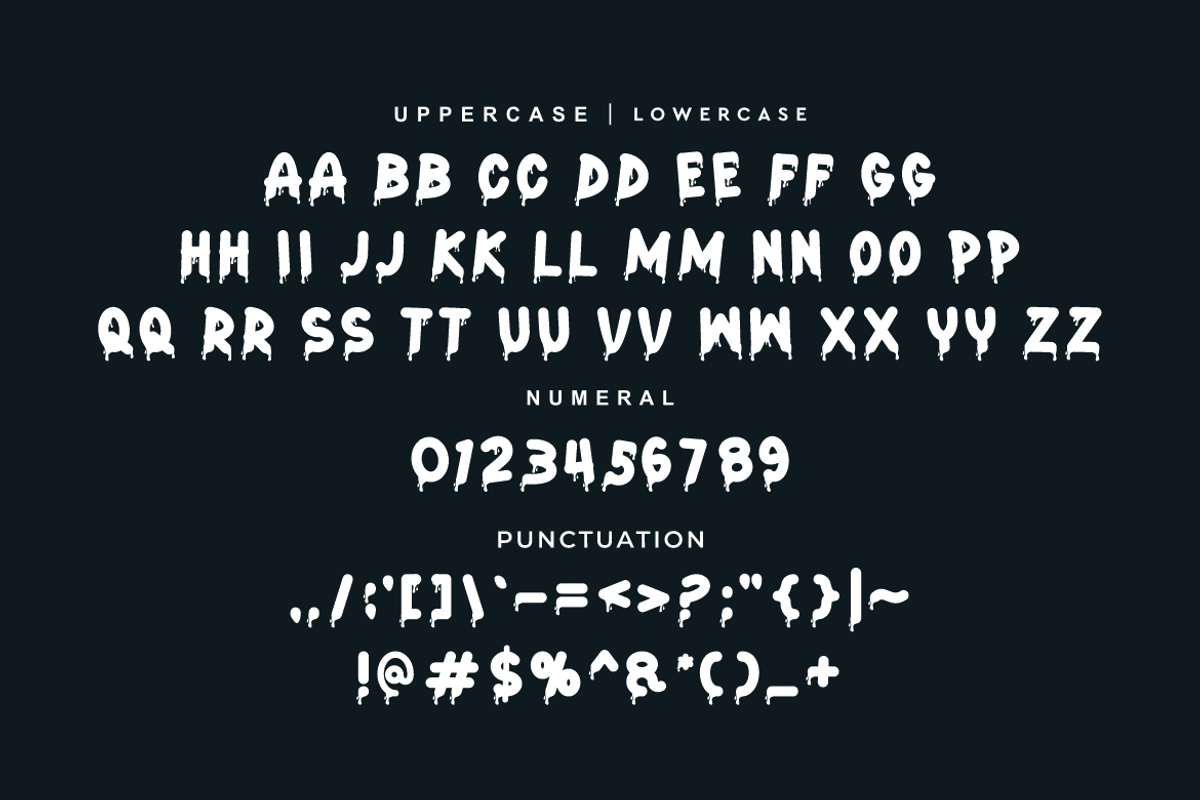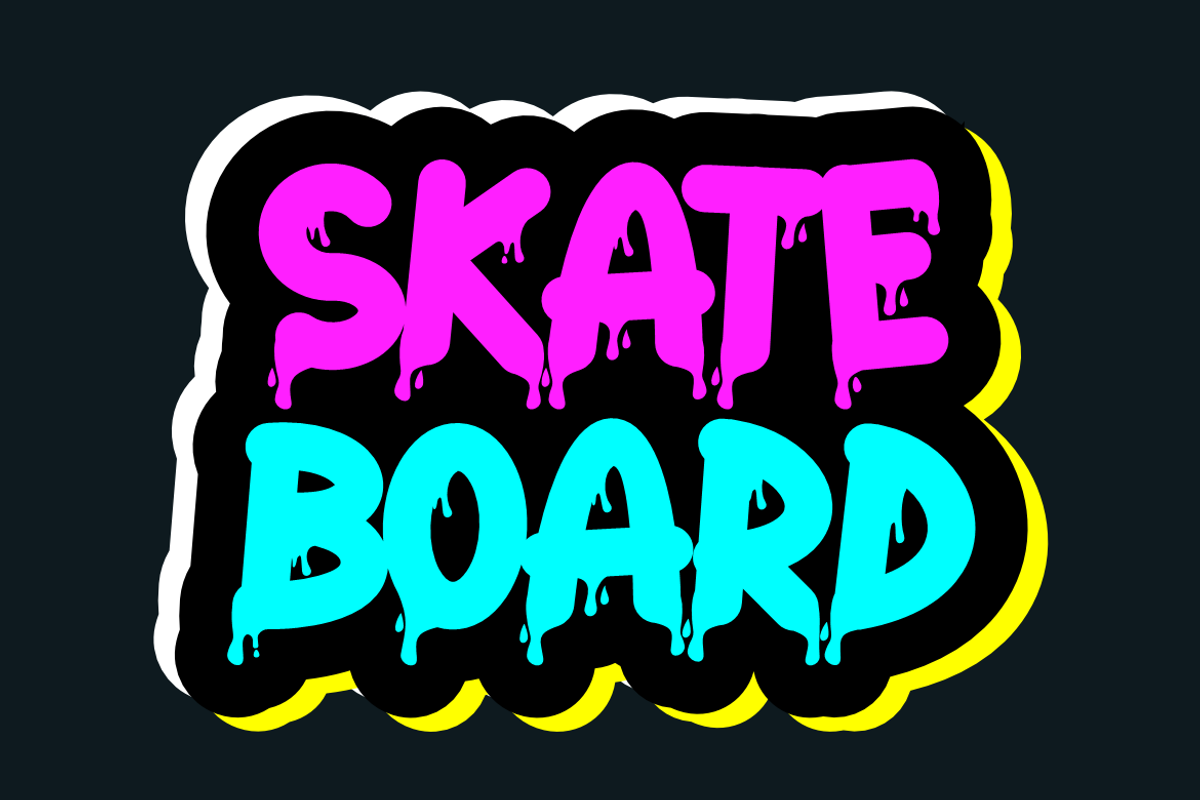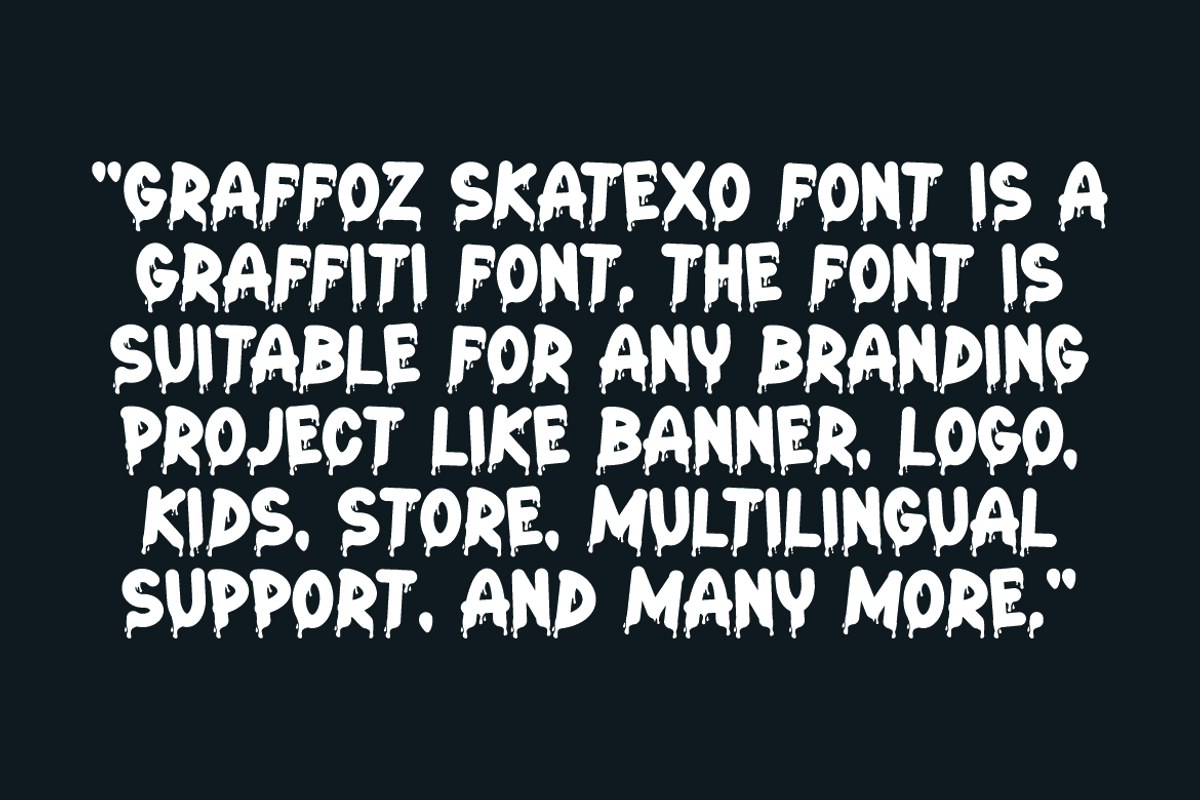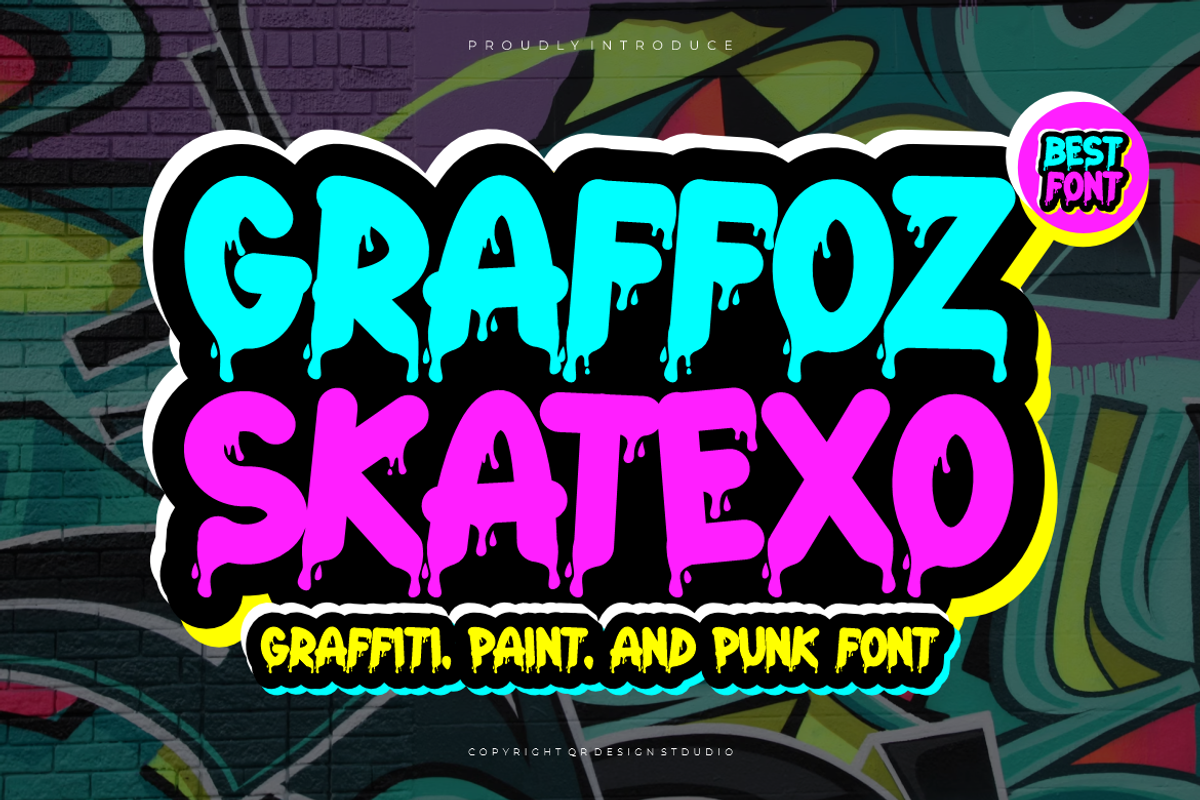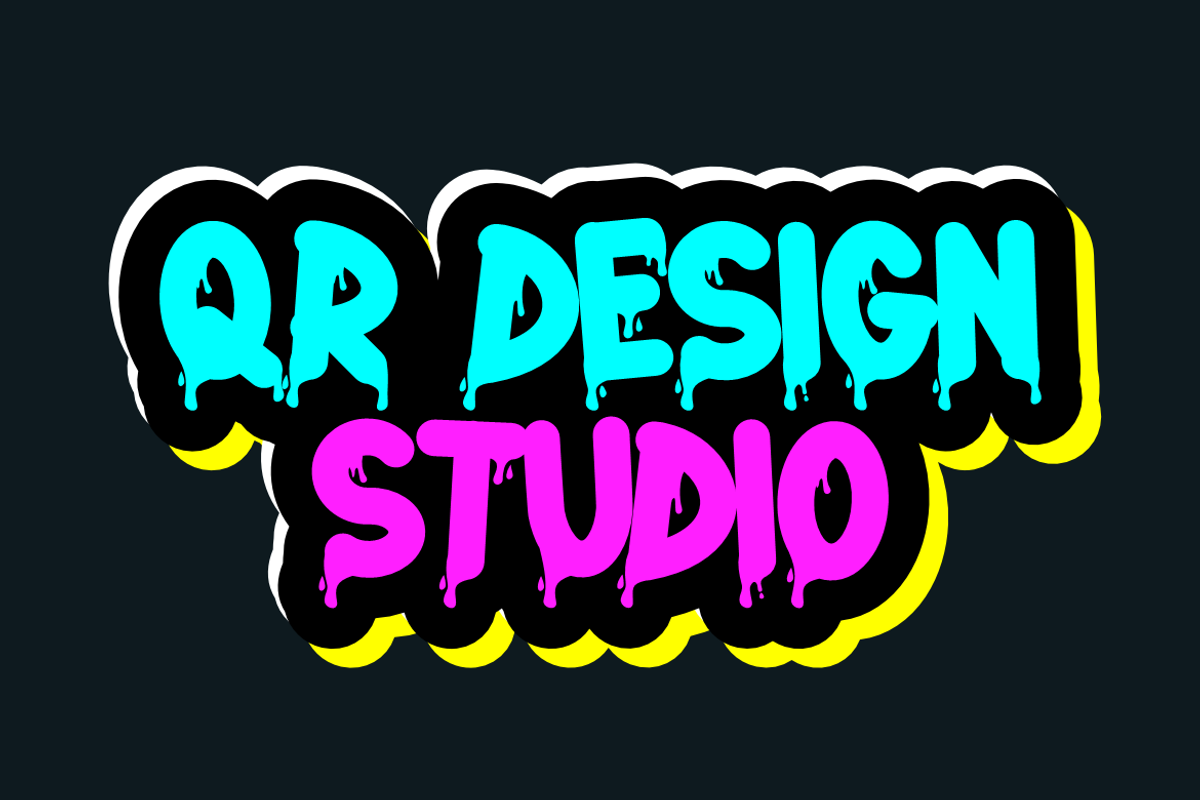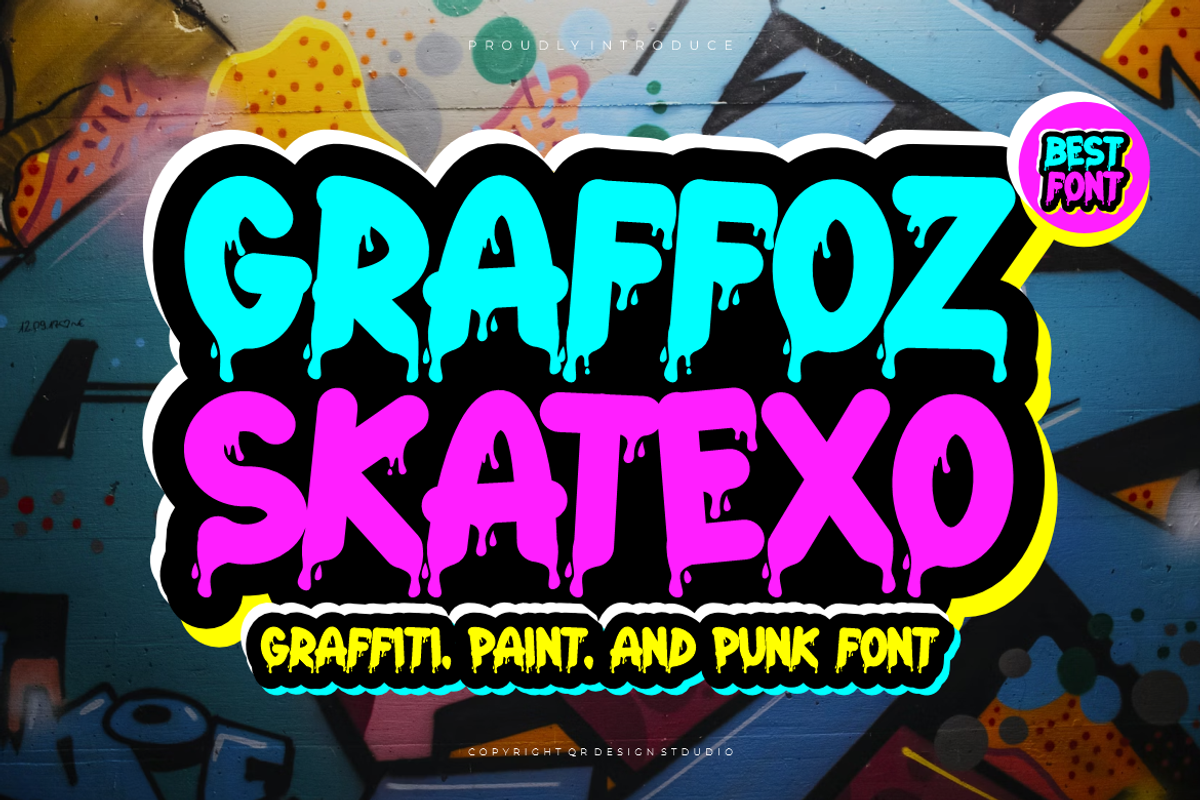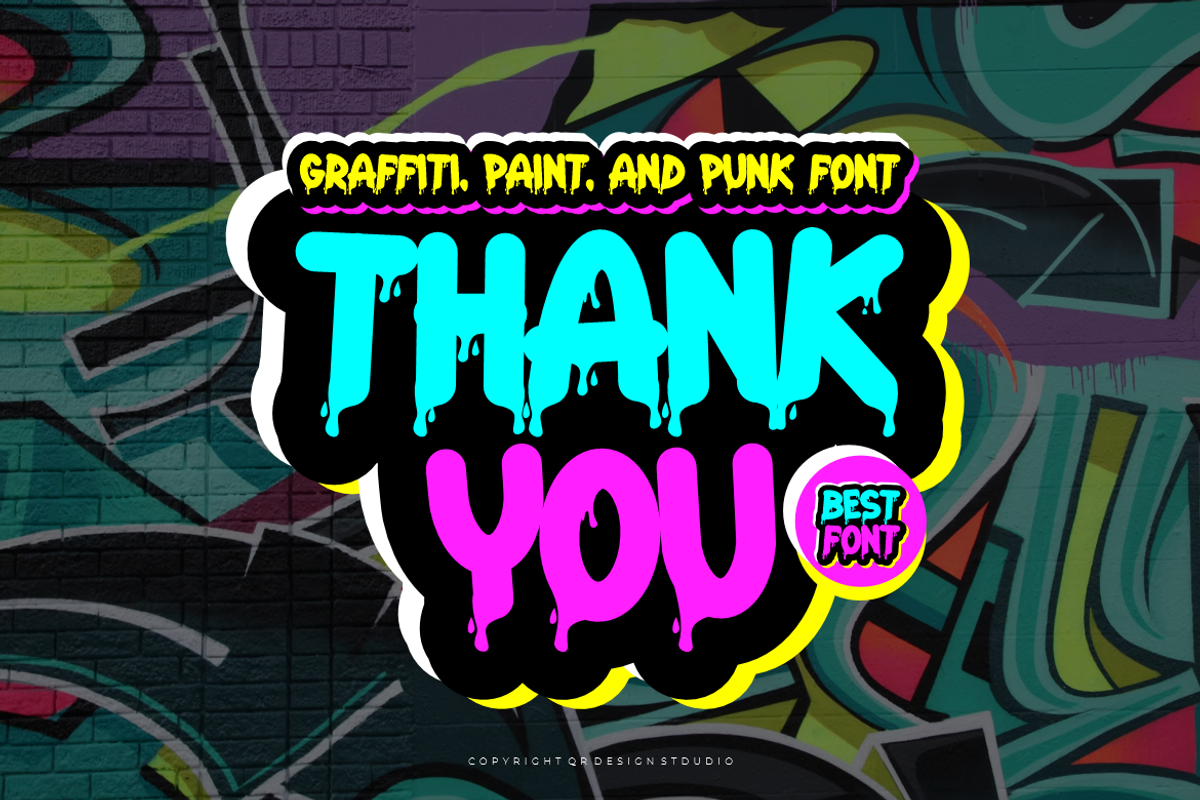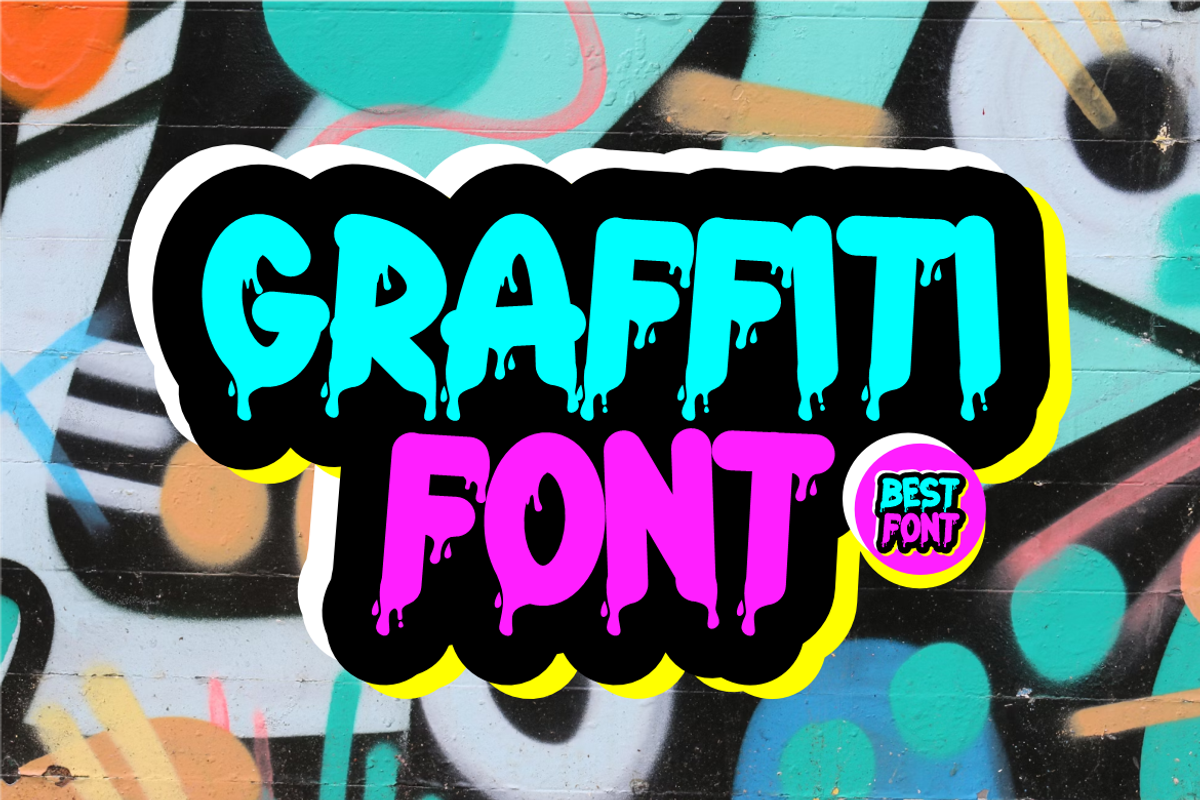
Graffoz Skatexo - Graffiti Font
Graffoz Skatexo Font is a graffiti and authentic display font. The font is suitable for any branding project like poster, logo, sport, and many more. Outstanding in a wide range of contexts.